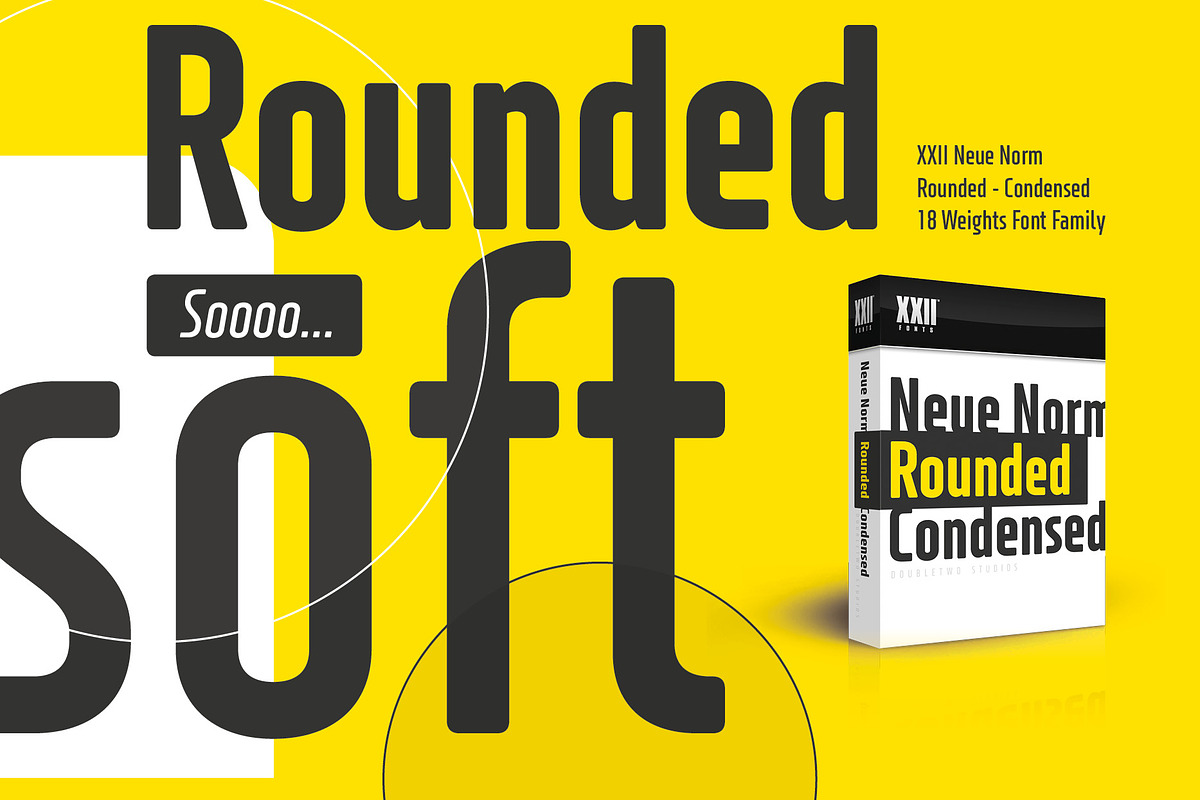
XXII Neue Norm Rounded Cnd
Based on the XXII Neue Norm this rounded version lives on the the powerful, straight and technical appearance of a constructed low contrast sans serif typeface. The carefully rounded corners simply bring up a subtile bit of softness.
XXII Neue Norm Rounded comes along in 9 styles and its fitting italics.